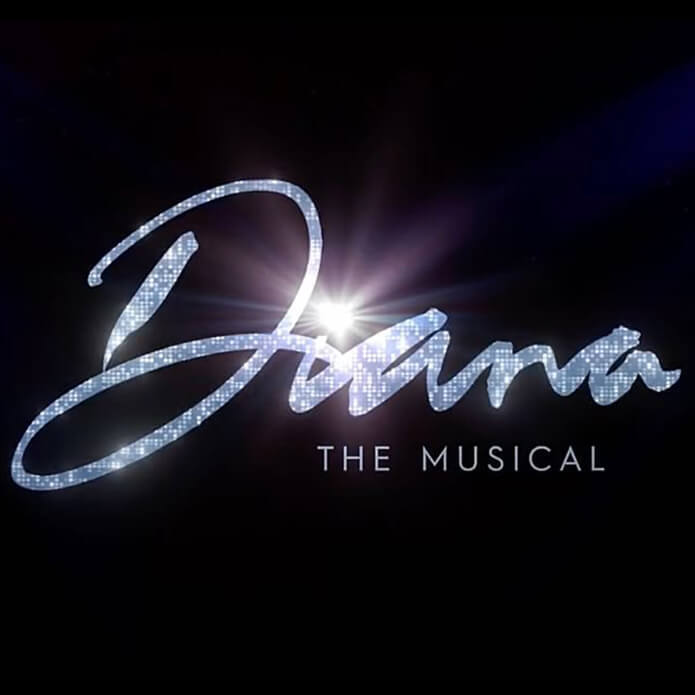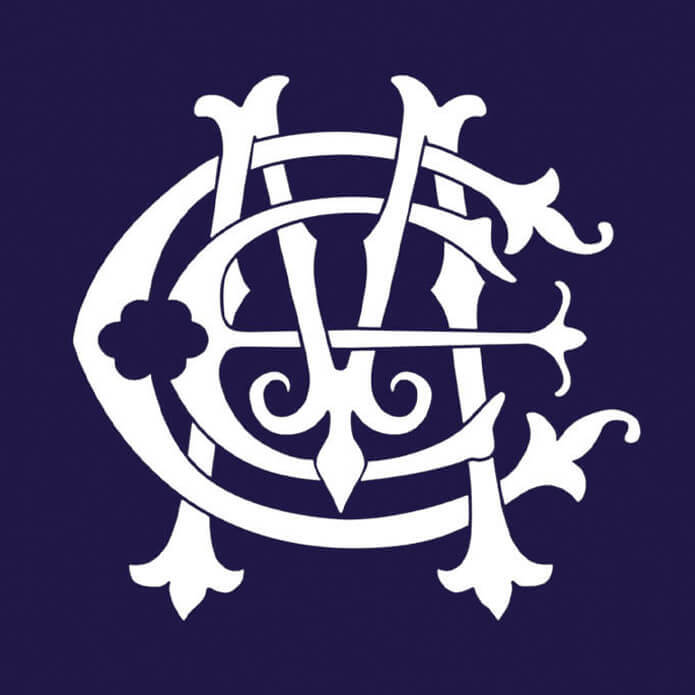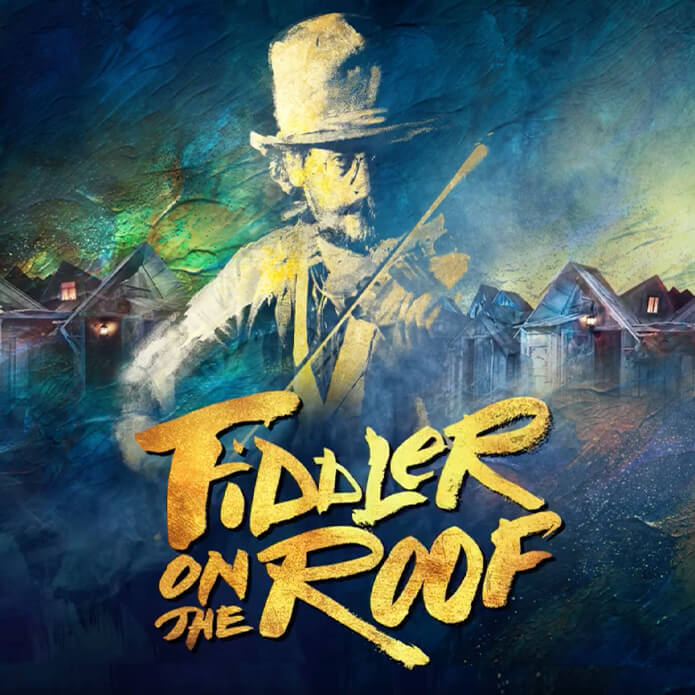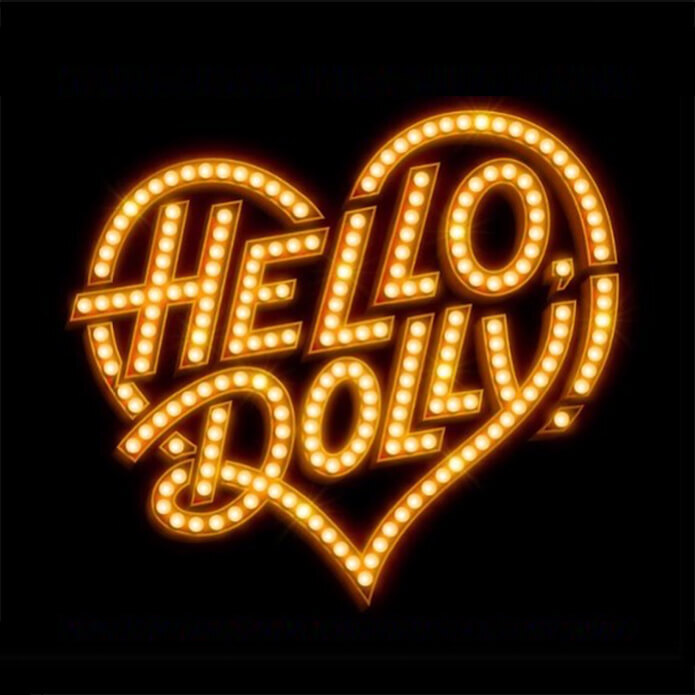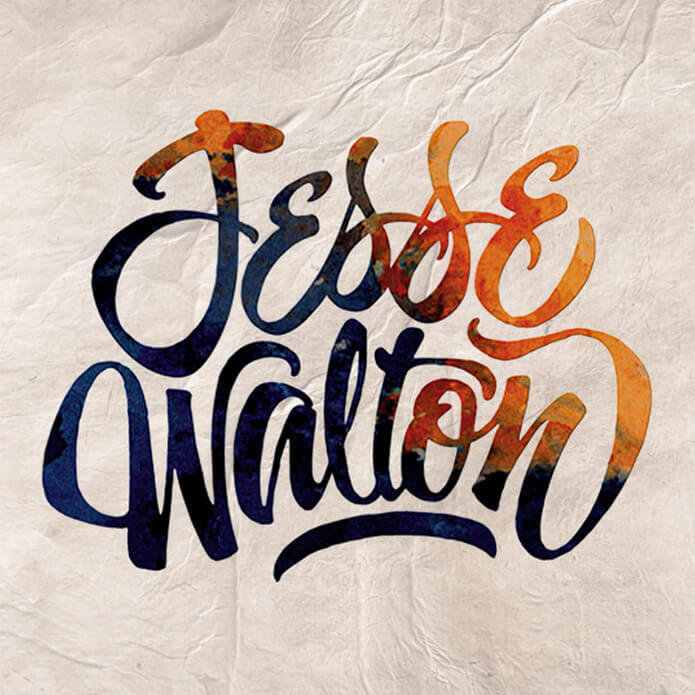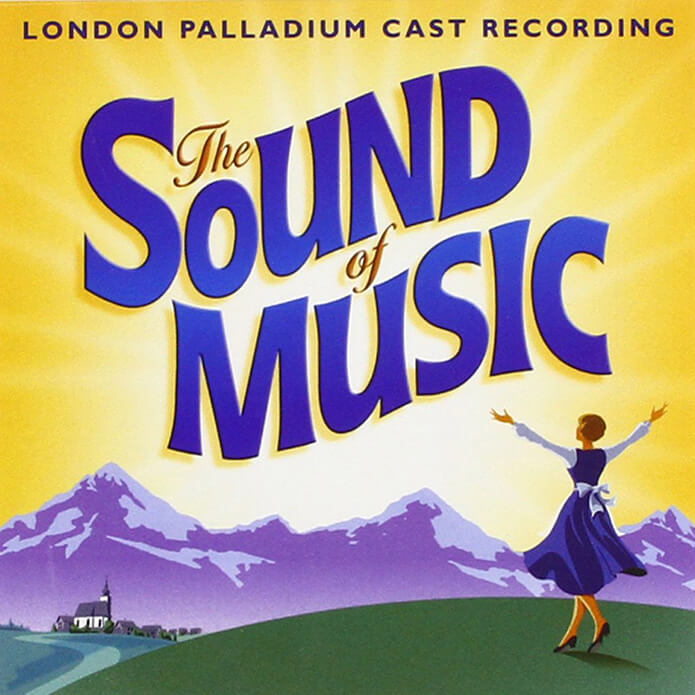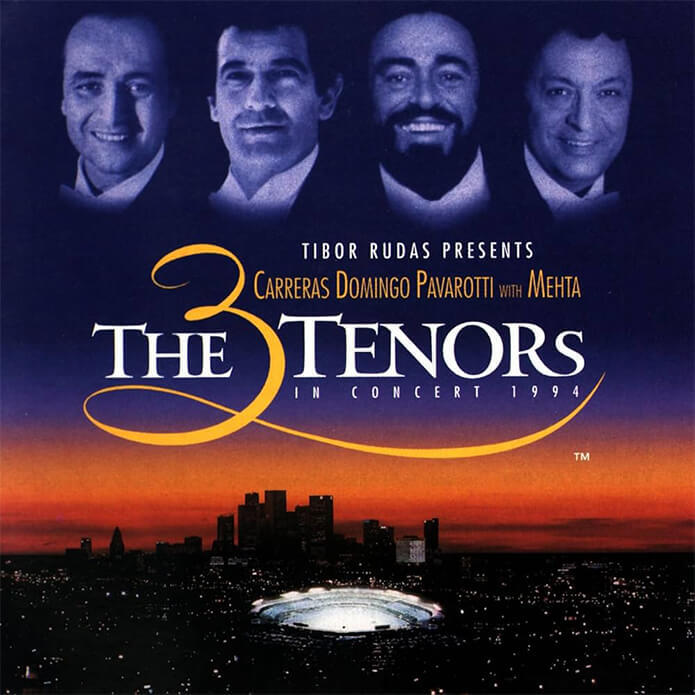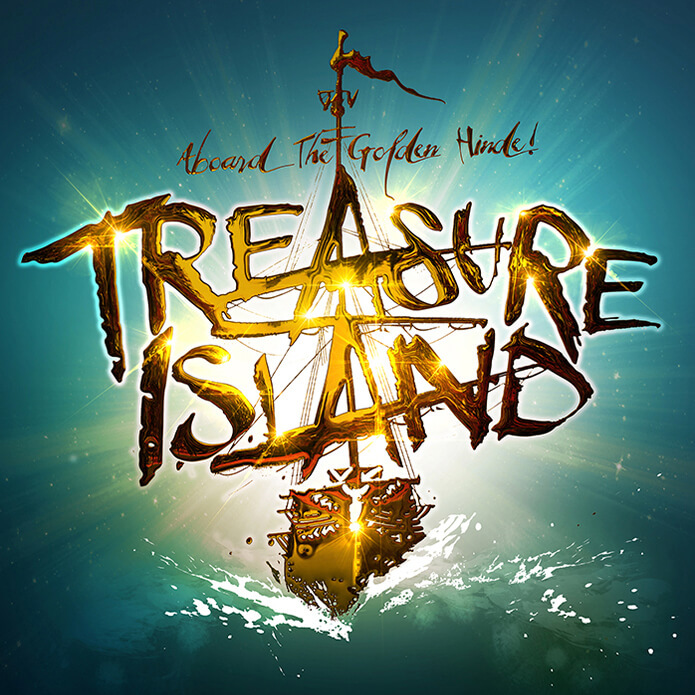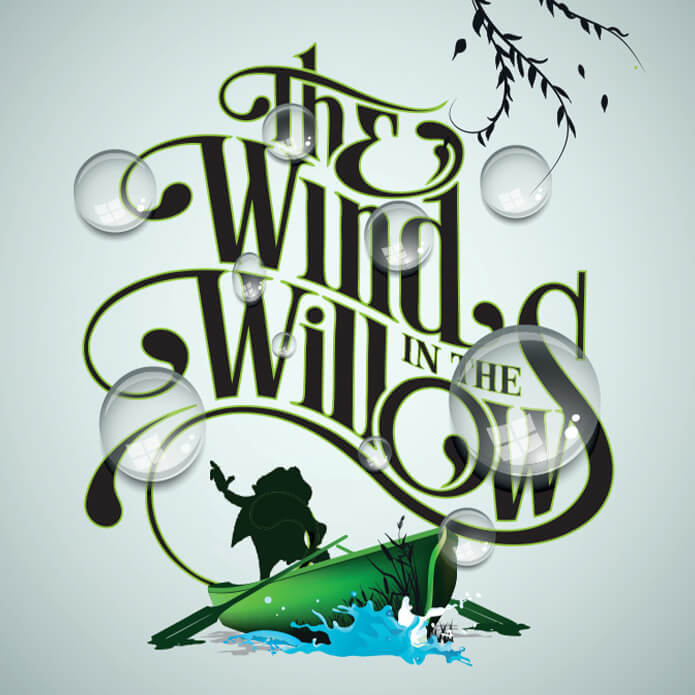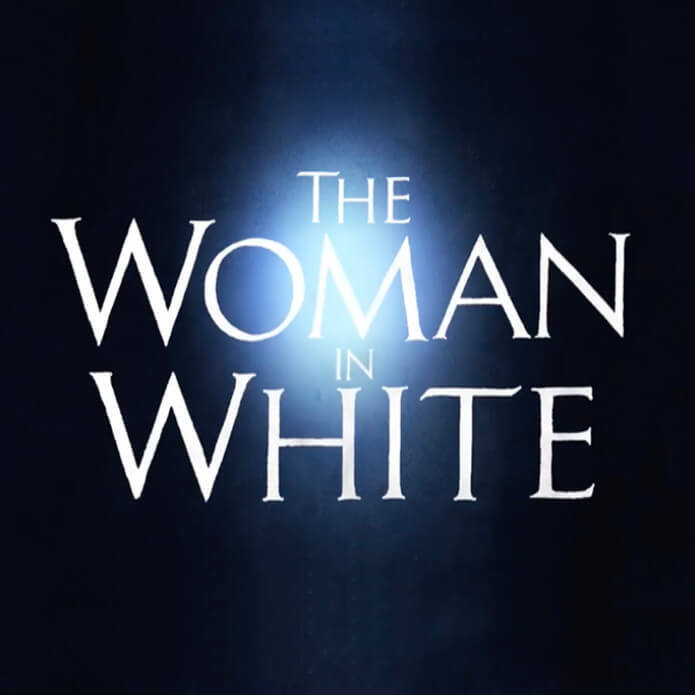
Nick completed a BA(Hons) degree in Graphic Design and Illustration at Brighton University, where he was tutored by the renowned calligrapher Miriam Stribley. Much of his working life has been spent in service to many of London’s top creative agencies and design studios as a designer, visualiser and key art lettering specialist (particularly in the theatre and publishing sectors). He is also an educator, spending eight years at the University for the Creative Arts as a sessional tutor teaching on the foundation and graphic design courses. Nick is currently Creative Director at Stewart2, a visual communications studio, based in Rochester, UK.
Since June 2015, he has been engaged with a personal project of re-imagining fountain pen inks as a creative medium for lettering and illustration. Through deconstructing the fountain pen inks some quite wonderful and magical processes occur. The freedom and variety that this unique medium offers is both addictive and inspiring. He now shares his lettering and illustration skills with a diverse international following with UK based workshops and an online course.
Nick Stewart – Fountain Pen Ink Art